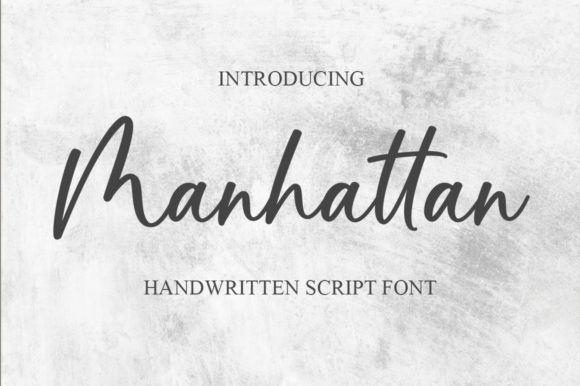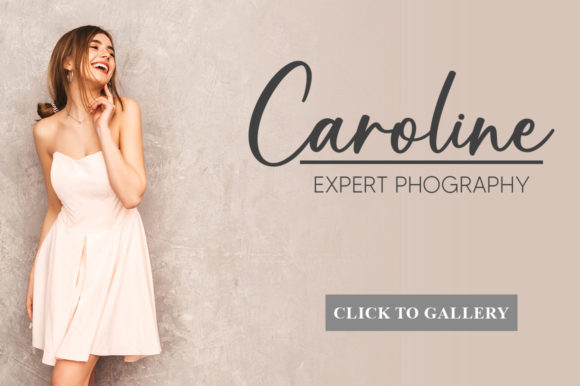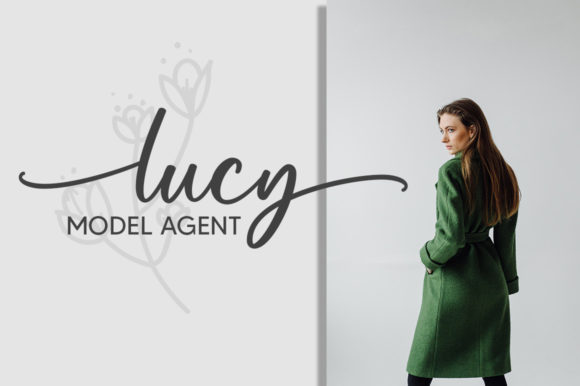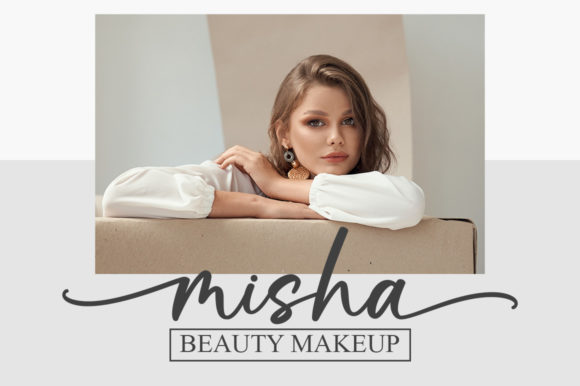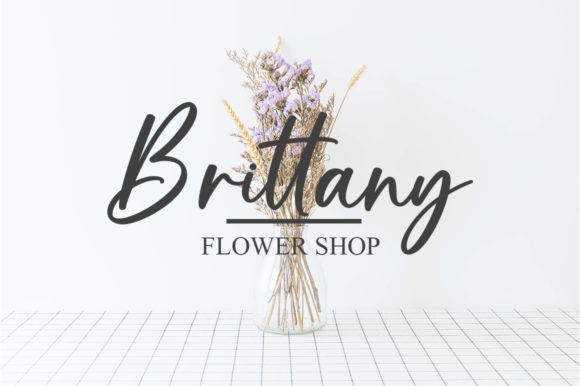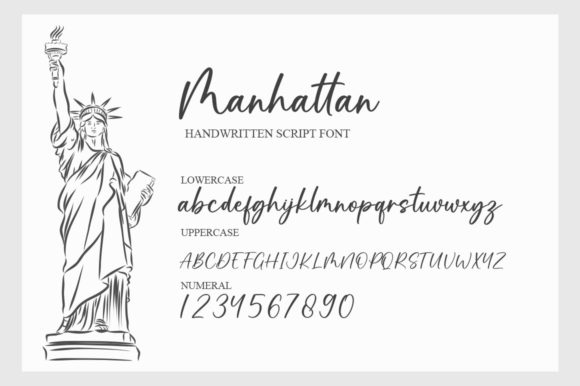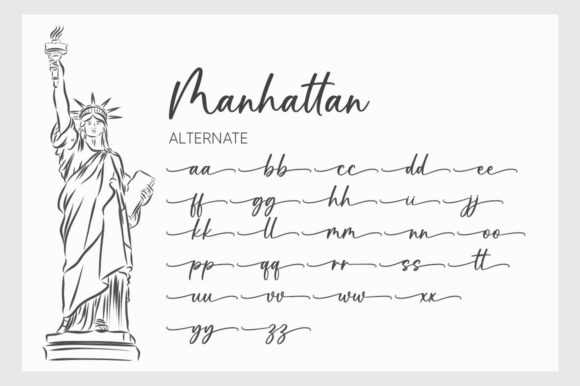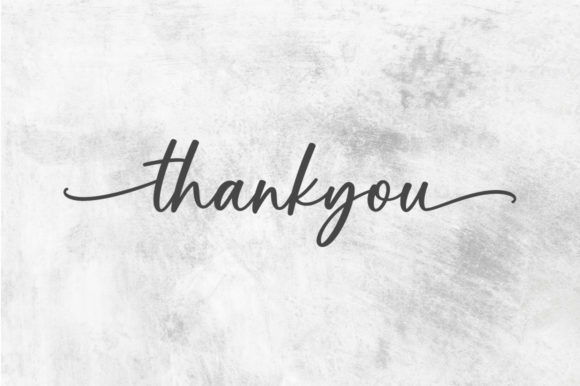
Manhattan Font
About Manhattan Font
“Manhattan” is a delicate and elegant handwritten font that boasts graceful and flowing characteristics. With its well-balanced and beautiful characters, this font seamlessly complements a diverse array of design styles.
The font’s delicate strokes and refined curves contribute to an air of elegance and sophistication. Its flowing and graceful appearance ensures its suitability for various design applications, enabling it to harmonize seamlessly with different visual contexts.
When integrated into your designs, “Manhattan” is bound to captivate attention. Its delicate and elegant attributes bring a sense of refinement, enriching the overall visual impact of your creations. Whether you’re working on branding, invitations, logos, or other design projects, this font is carefully crafted to elevate the aesthetic and create a lasting impression.
Furthermore, “Manhattan” offers more than just a font—it’s a versatile tool that provides access to a wide range of glyphs and swashes through PUA encoding. This feature empowers you to effortlessly enhance your designs with additional design elements, allowing for a personalized touch and the creation of unique visuals.
In essence, “Manhattan” is a font that embodies delicacy, elegance, and flow. Its well-balanced characters and PUA encoding make it a valuable resource for designers who seek to infuse their projects with sophistication and individuality.